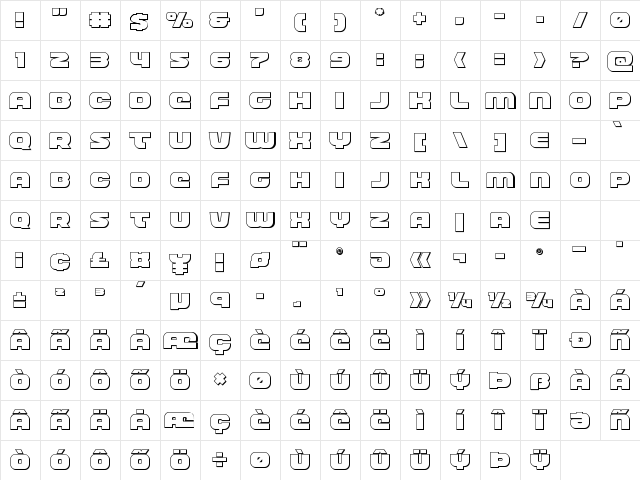
Front Runner Outline is built around its visual character rather than neutral utility - its distinctive forms are designed to make an impression at display sizes.
Font Pairing: Pair with a clean neutral sans-serif for body copy to let Front Runner Outline's character lead without overwhelming the composition.
Pro Tip: Use Front Runner Outline exclusively at display sizes - it was designed to be seen, not read at length. Let a neutral companion handle body copy.